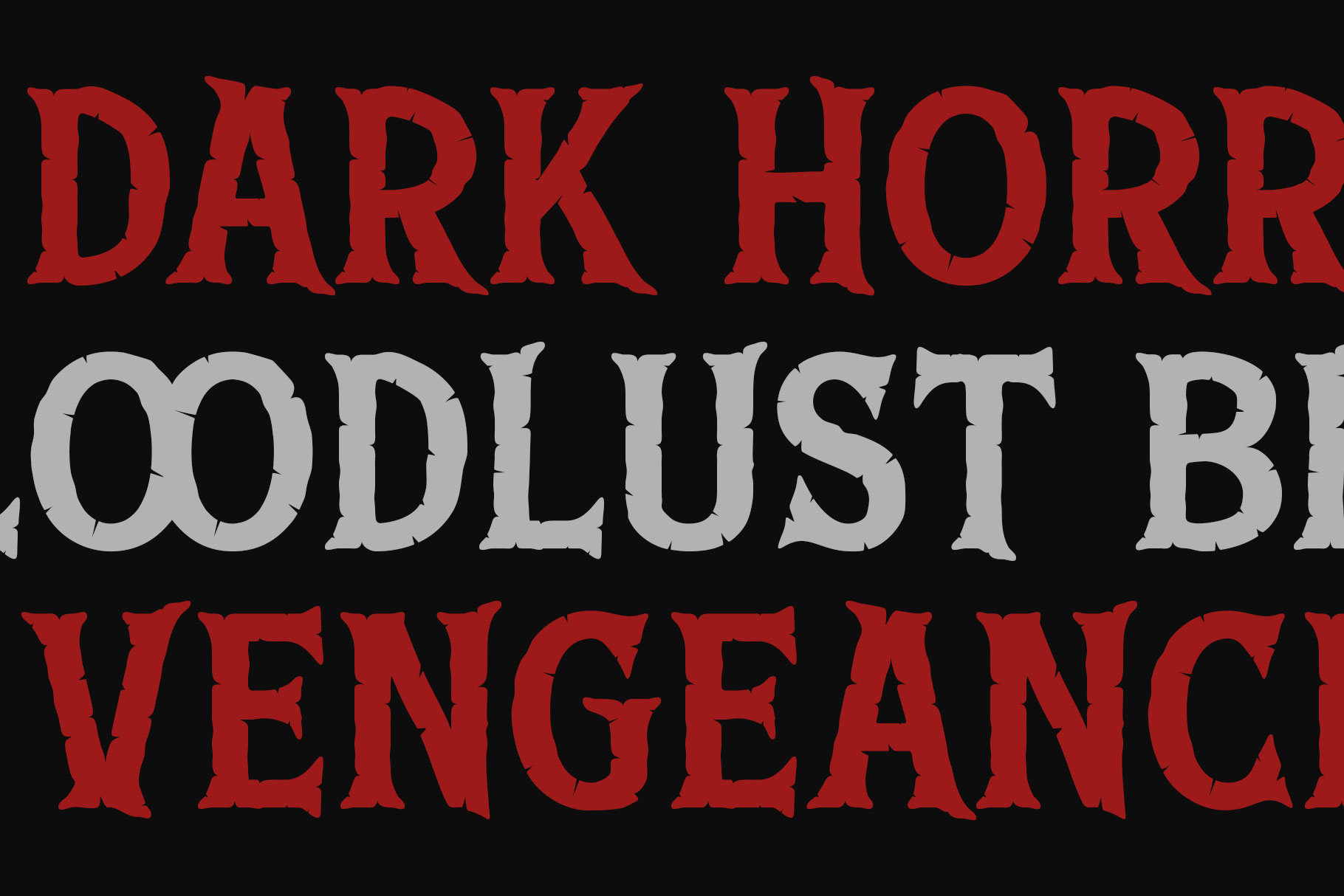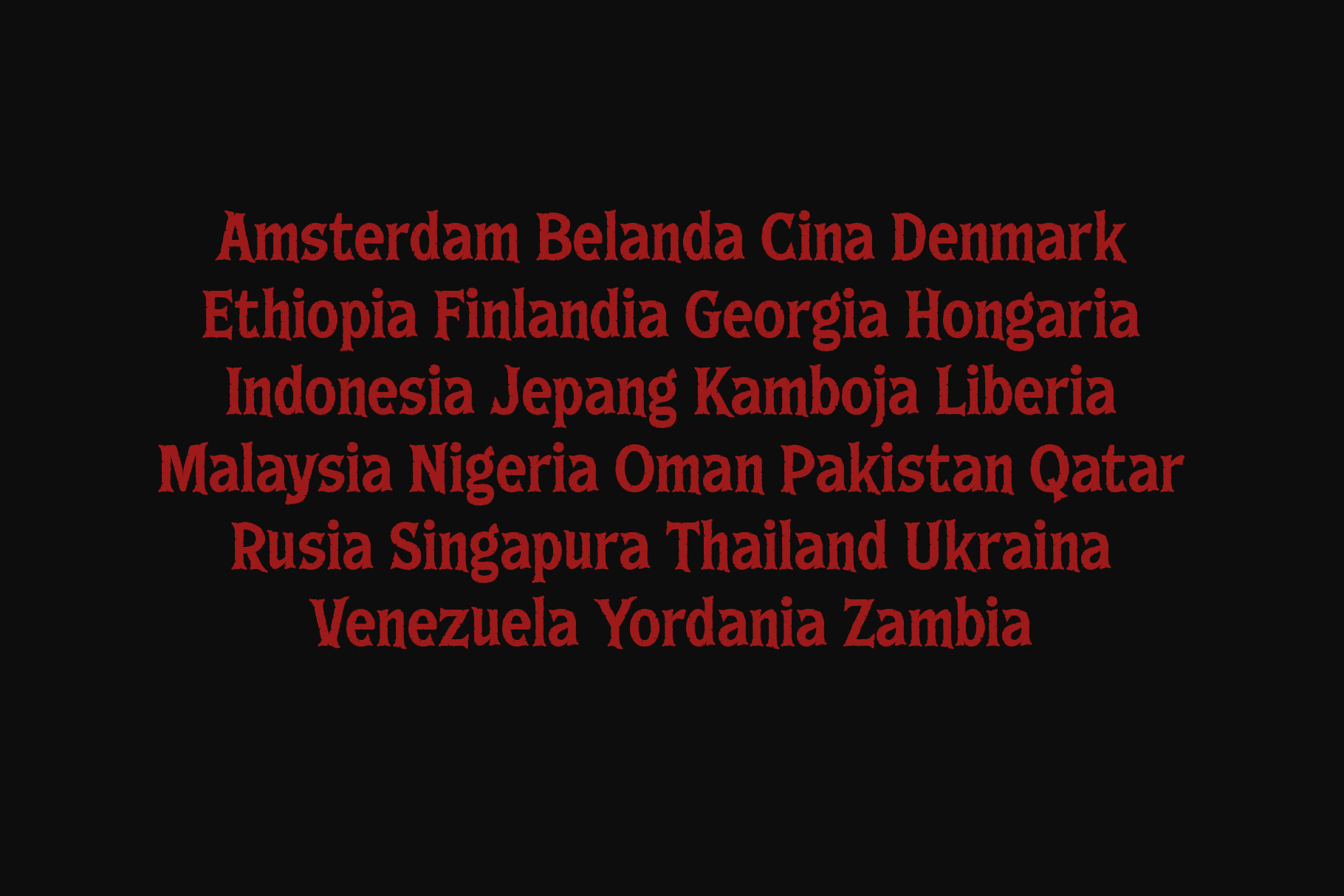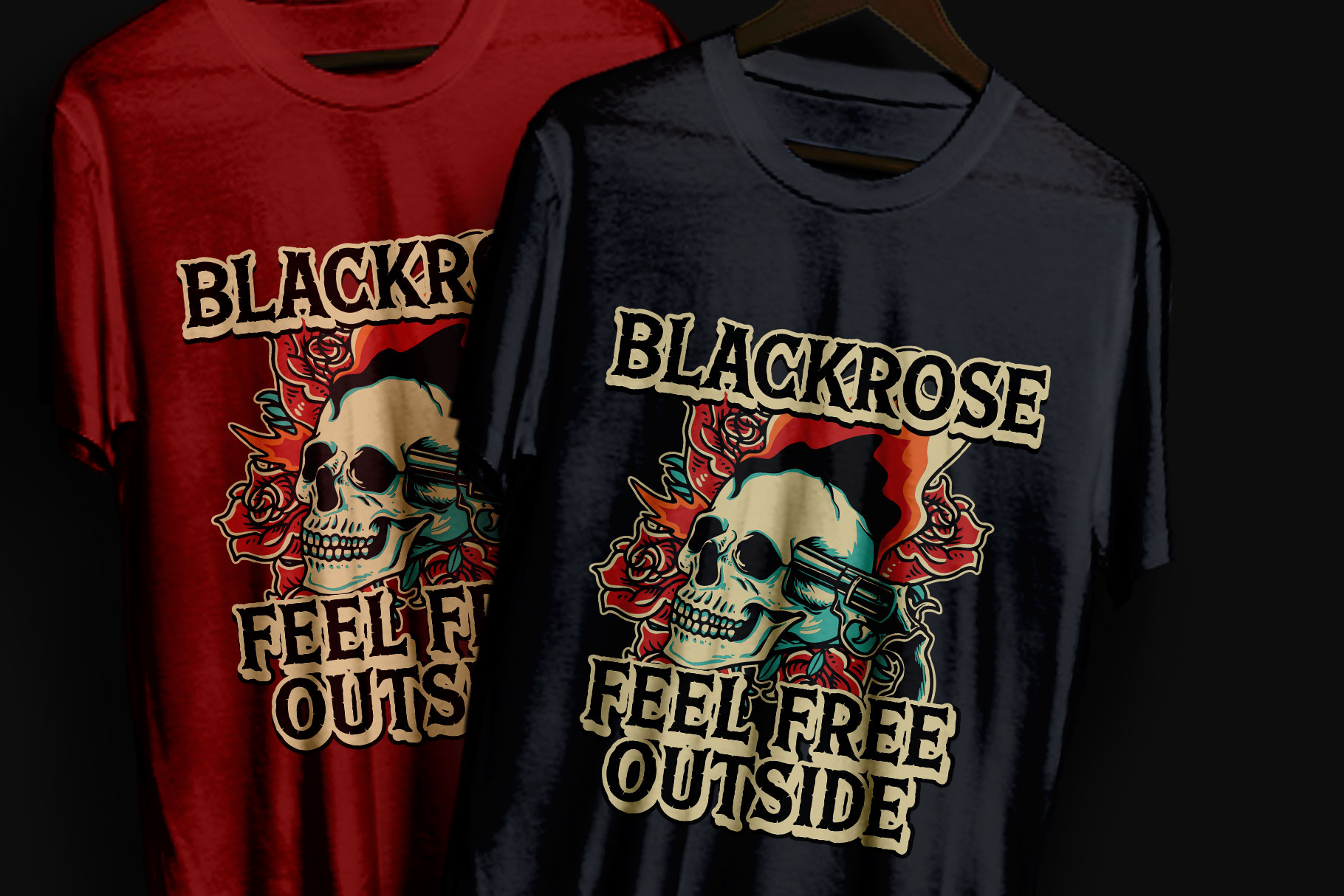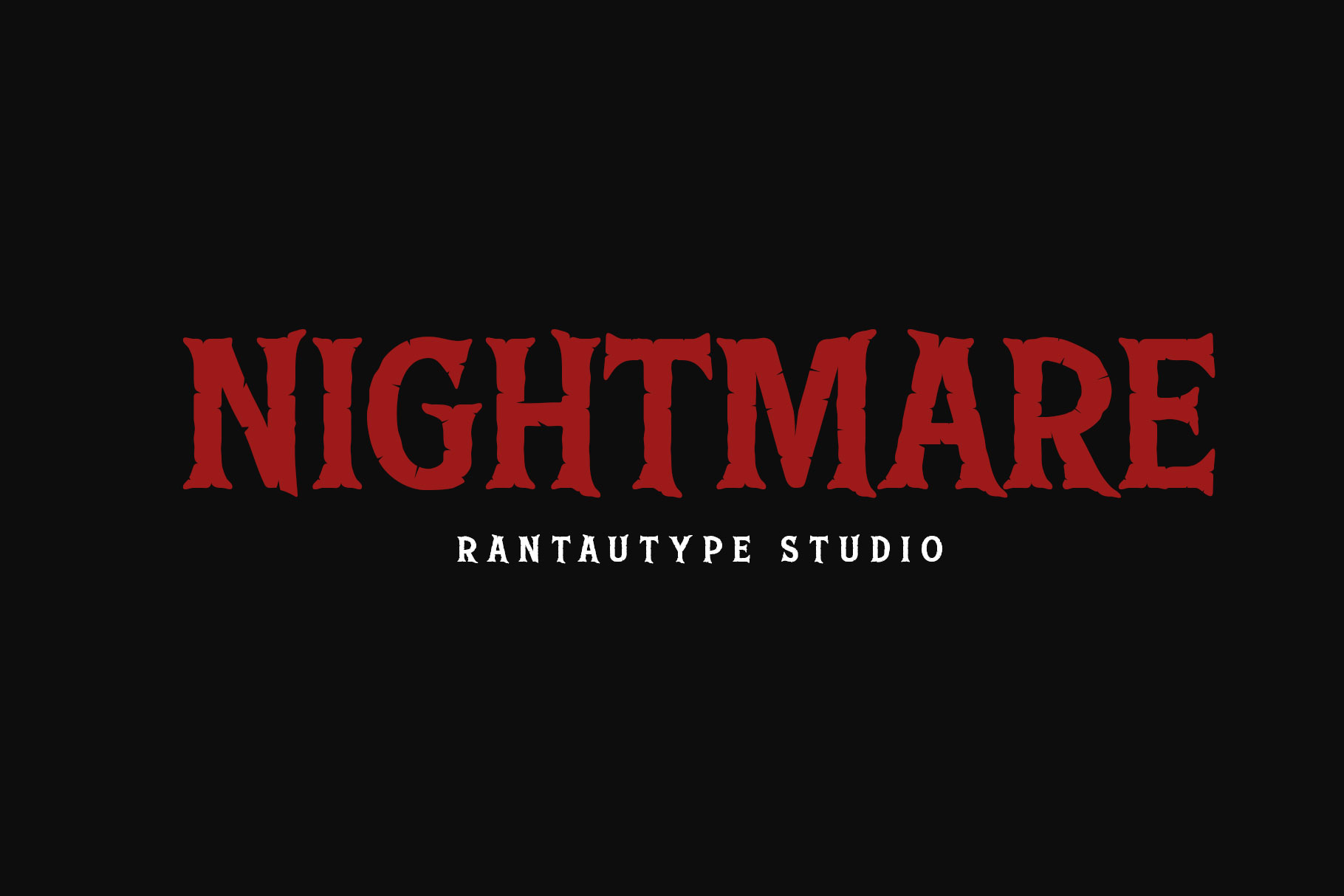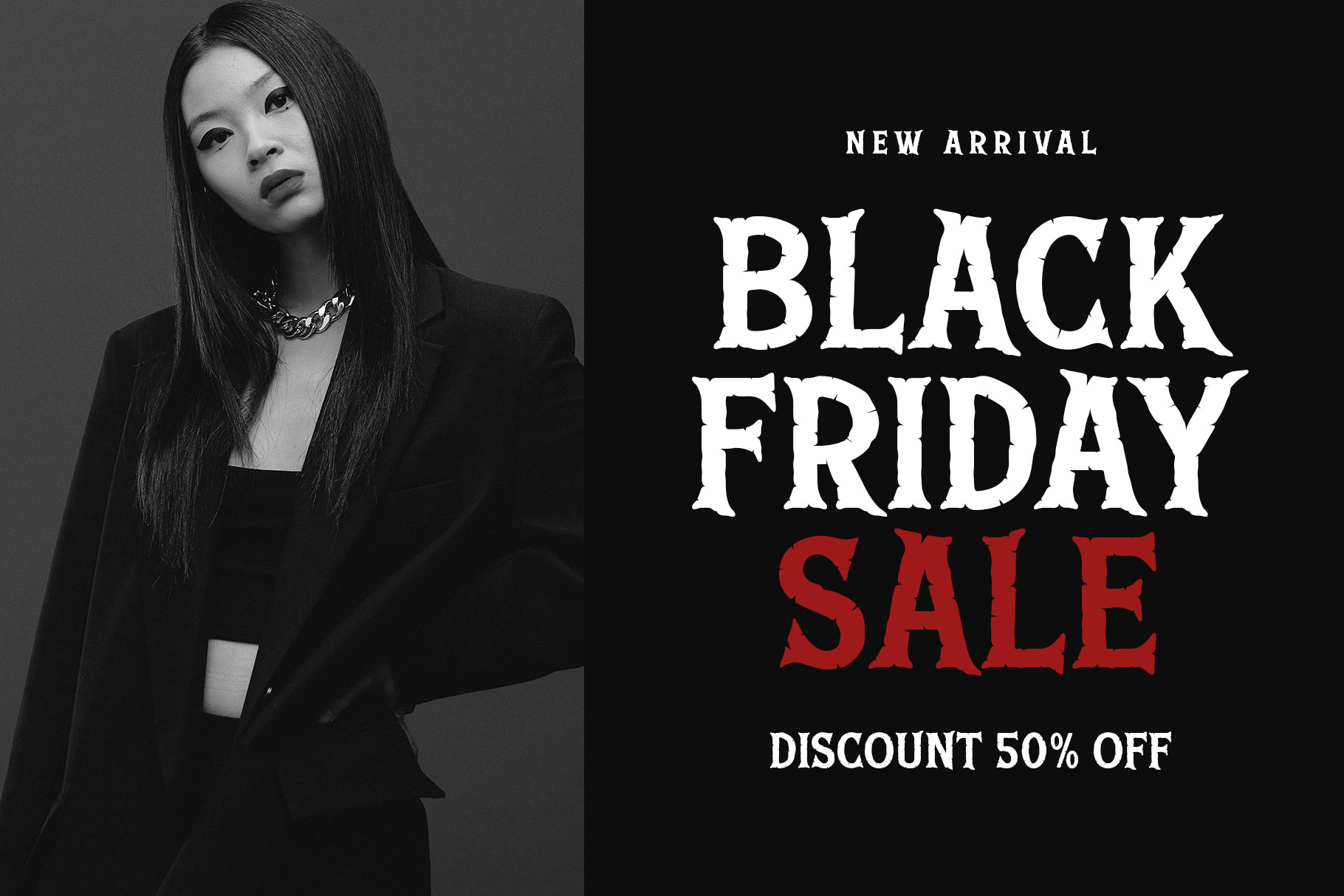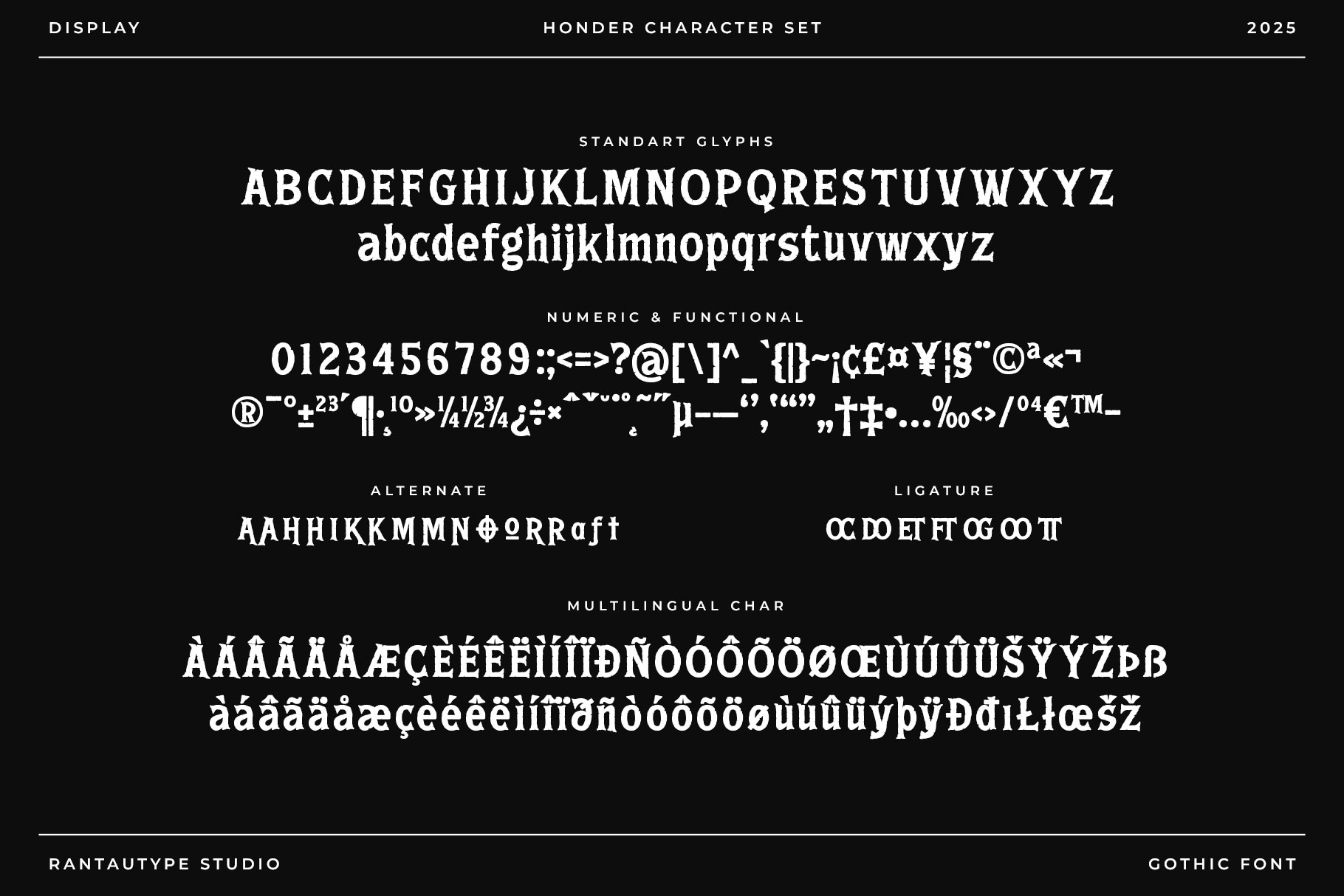
Honder Gothic Medieval Display Font
Honder is medieval display font made by Rantautype Studio. Honder is a perfectly choice for any creative endeavor, creating, modern, lifestyle design such as logotype, title, cover, branding, invitations, wedding designs, display and magazine, social media posts, advertisements, printed quotes, product packaging, corporate brand, product designs, labels, photography, watermarks, special events and any other project with modern touch.